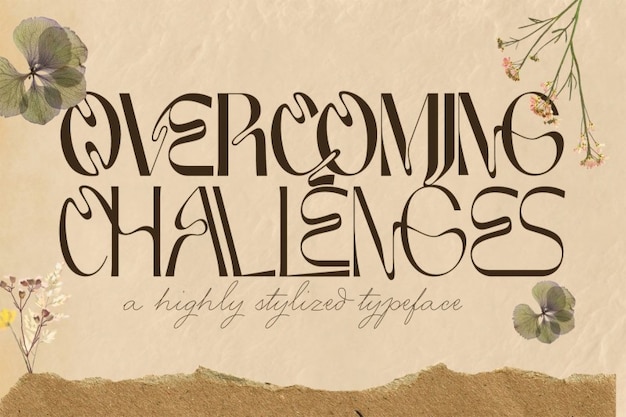
Overcoming Challenges Font
177Studio
"Overcoming Challenges" is a quirky and stylish font with a playful wave-like flow that exudes creativity and charm. Its unique curves and rhythmic forms add a dynamic energy, making it perfect for artistic projects and bold statements. This font captures the spirit of resilience and originality, turning every design into a visually captivating journey.